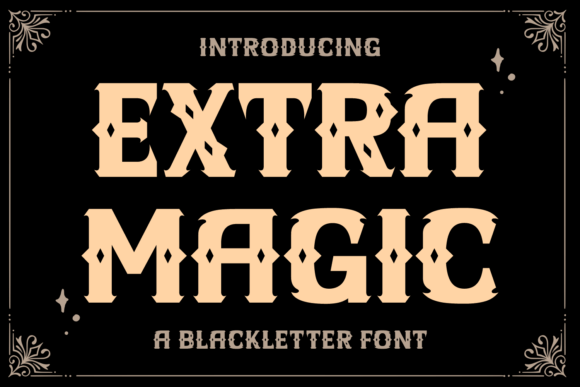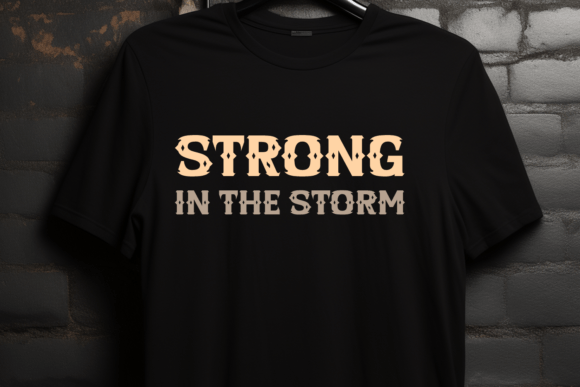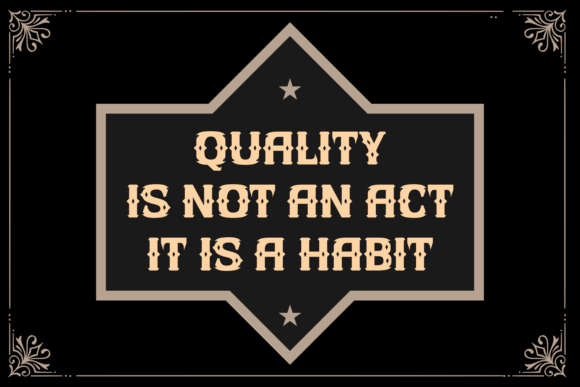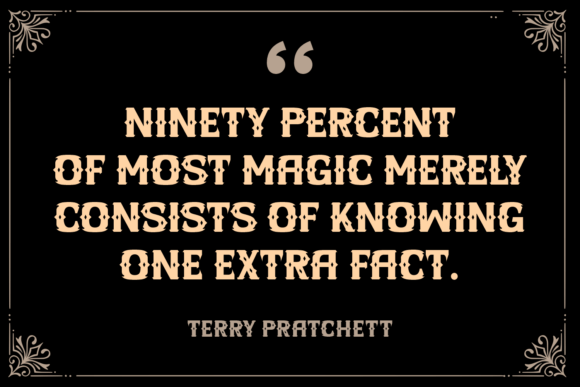
The Magic of Typography: Unveiling Extra Magic Font
As a designer, you know that sometimes a single font can transport your audience to another world. For me, that world is medieval Europe, where grand castles and mysterious manuscripts come alive. It was during one such creative reverie that I stumbled upon a font that would change the way I approach design: Extra Magic Font.
This striking blackletter font masterfully blends traditional gothic style with modern flair, resulting in sharp, angular letterforms and intricate detailing. Its unique aesthetic makes it perfect for fantasy, vintage, and medieval-inspired designs. Whether you’re crafting a novel cover, a fantasy game, or a website with a touch of mystique, Extra Magic Font is an invaluable tool in your design arsenal.
Key Features of Extra Magic Font
- Font Family: Extra Magic Font is a unique, hand-drawn font family with multiple styles, including Regular, Italic, Bold, and Bold Italic.
- Unique Characteristics: The font’s unique, hand-drawn style and subtle imperfections give it a warm, human touch, making it perfect for creative and artistic projects.
Designer Review: Extra Magic Font
Overall, I found “Extra Magic Font” to be a decent choice for designers looking for a playful, whimsical feel in their projects. ✨ Here are some of its strengths:
- Uniquely stylized characters that add a touch of magic to any text
- Highly legible, even at smaller font sizes
- Supports a wide range of languages, making it a good choice for global projects
- Limited customizability – some designers may find the font’s style too restrictive
- Not ideal for formal or professional projects, as it may come across as too playful
- Some characters may not render correctly in certain font sizes or resolutions
Overall, I’d say “Extra Magic Font” is a solid choice for designers who want to add a touch of whimsy to their projects. While it may not be suitable for every project, it’s a great option for those looking for a unique and playful feel. With some careful planning and consideration of its limitations, “Extra Magic Font” can be a valuable addition to any designer’s toolkit.
The Extra Magic Font is ideal for:
1. Creating eye-catching headlines and titles.
2. Adding a touch of magic to your branding and marketing materials.
3. Creating unique and engaging social media graphics.
Alternatives to Extra Magic Font
Great Vibes is a beautiful, elegant script font that is perfect for creating a sense of sophistication and luxury. It’s ideal for use in branding, invitations, and other high-end materials. Great Vibes has a more refined and polished look compared to Extra Magic Font, making it a great choice for designers who want to create a high-end feel.
Carolyna Pro is a modern, elegant script font that is perfect for creating a sense of elegance and sophistication. It’s ideal for use in branding, advertising, and other materials where a touch of sophistication is needed. Carolyna Pro has a more refined and polished look compared to Extra Magic Font, but with a more modern twist.
Pacifico is a beautiful, elegant script font that is perfect for creating a sense of relaxation and calmness. It’s ideal for use in branding, advertising, and other materials where a touch of elegance is needed. Pacifico has a more casual and laid-back look compared to Extra Magic Font, making it a great choice for designers who want to create a relaxed feel.